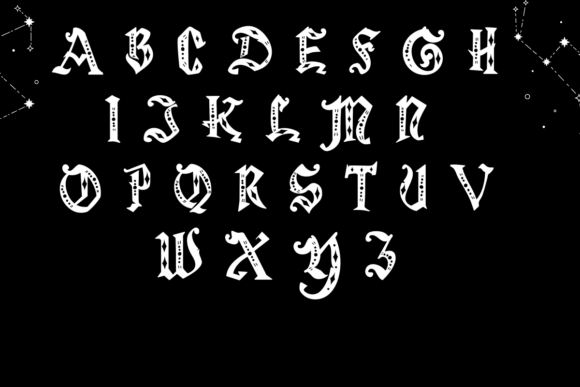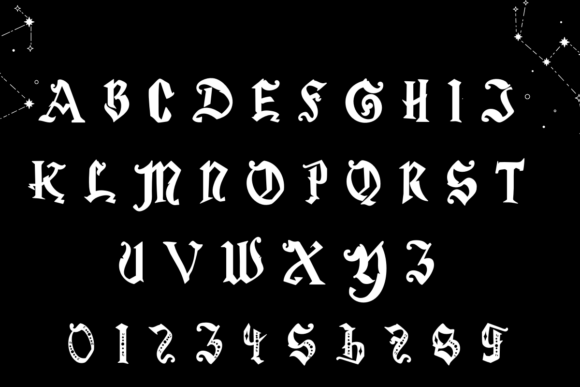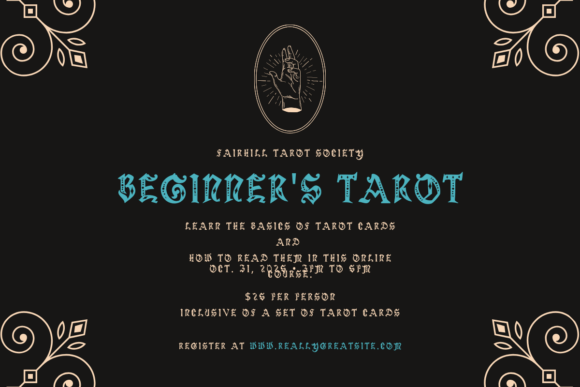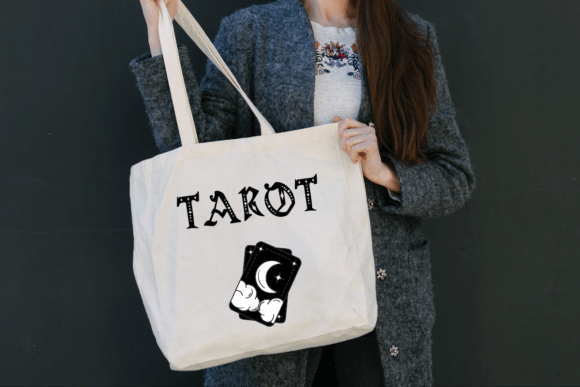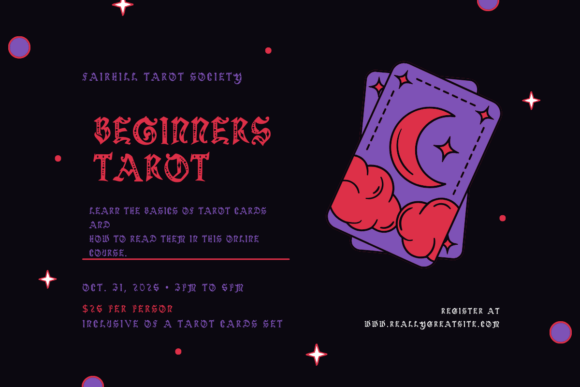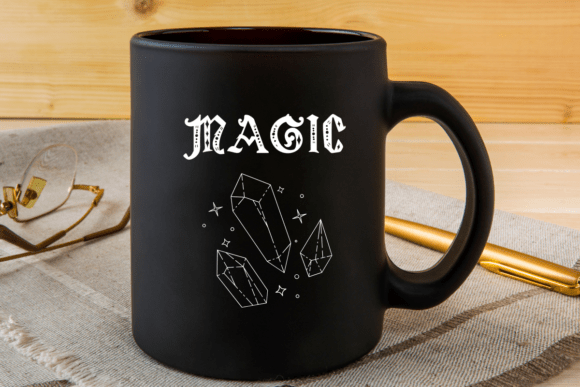
Introduction to Mystic Deck Font
Do you remember that moment when you stumbled upon the perfect font for your creative project? The one that made your design stand out, and you couldn’t wait to share it with the world? For designers and crafty individuals, finding the right font can be a game-changer. It’s like discovering a hidden treasure that elevates your work from ordinary to extraordinary.
One such treasure is the Mystic Deck Font, a stunning decorative font that’s perfect for a wide range of creative pursuits. Whether you’re taking notes, writing a diary, or making greeting cards, this font adds a touch of magic to your work. And the best part? It’s a free download, making it an accessible design resource for anyone.
With its high-quality design and transparent background, the Mystic Deck Font is a valuable addition to any designer’s toolkit. Its versatility makes it suitable for banners, social media posts, mugs, cards, shirts, stationery, and more, making it an essential design resource for anyone looking to create something truly unique.
Key Features of Mystic Deck Font
- High-quality design font ideal for creative projects, offering a unique and mystical aesthetic.
- Includes a transparent background, allowing for seamless integration into various design elements.
- Unique characteristics include intricate details, mystical symbols, and an enchanting atmosphere, making it perfect for fantasy-themed projects.
- Perfect for use in digital art, graphic design, and other creative endeavors, adding a touch of mysticism to any design.
Honest Review: Mystic Deck Font
I recently stumbled upon the Mystic Deck Font, a unique design resource that caught my attention. At first glance, I was drawn to its high-quality design and versatility, making it an excellent addition to any creative project.
Here’s what works well: ✨
- Unique and stylish design aesthetic, perfect for projects that require a touch of mysticism.
- Comes with a transparent background, giving users flexibility in design placement.
However, I did encounter some limitations: ⚠️
- Only a few font styles are available, which may limit its usability in certain projects.
- The font size can appear small on certain screens, potentially affecting readability.
Overall, I’m impressed with the Mystic Deck Font’s design quality and its potential to elevate creative projects. While it has some limitations, I believe it’s a valuable resource for designers looking for a unique and high-quality font.
Mystic Deck Font
The Mystic Deck Font is a high-quality, free download design resource ideal for creative projects. This font features a transparent background, making it versatile for various design needs.
Tips for Getting the Most Out of Mystic Deck Font
Experiment with different font sizes and colors to create a unique look. Combine the Mystic Deck Font with other design elements to add depth and interest to your designs.
The Mystic Deck Font is ideal for various creative projects, including:
- Magazine and newspaper designs
- Website and blog headers
- Brochure and flyer designs